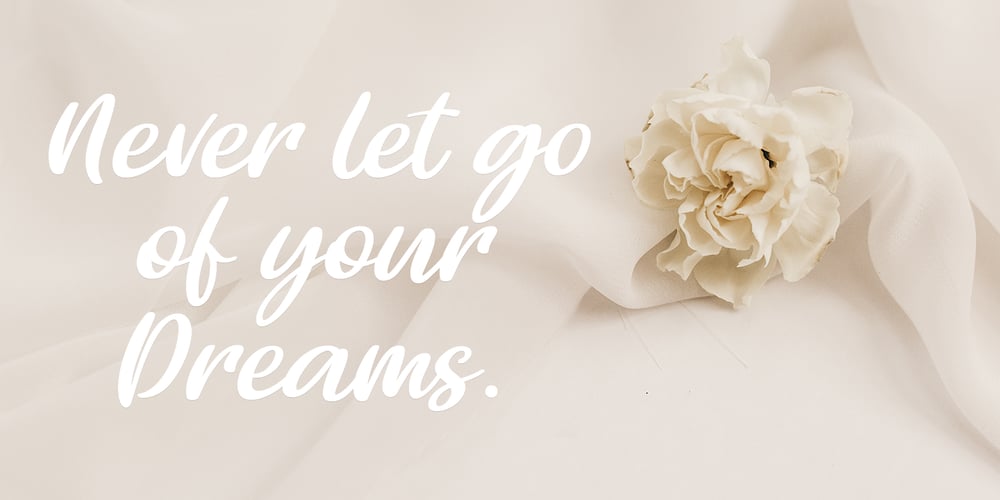
Brisbane Font Family was designed by Pavel Larin and published by Larin Type Co. Brisbane contains 1 styles and family package options. Brisbane – a new handwritten font. Inspired by brush fonts, this font is ideal for branding and to decorate your project. It’s perfect for wedding invitation or your blog. Also with their help, you can create a logo or beautiful frame for your home. Or just use for your small business, book covers, stationery, marketing, magazines and more.